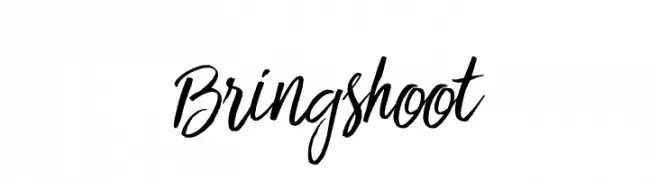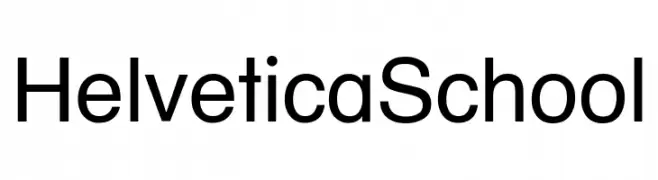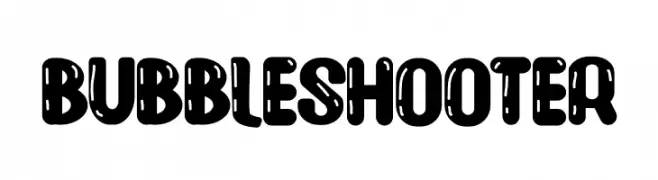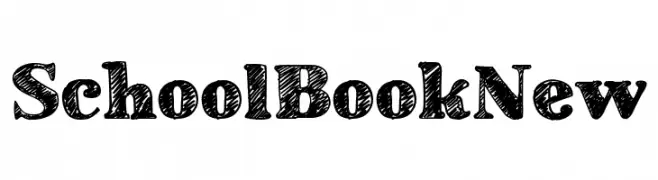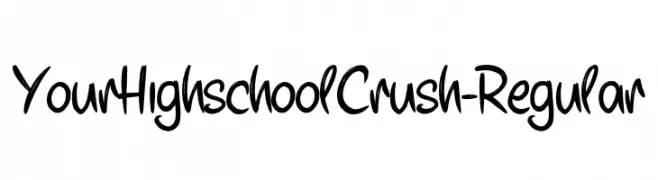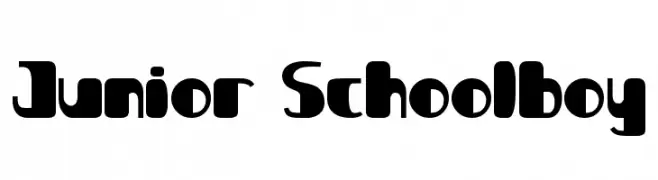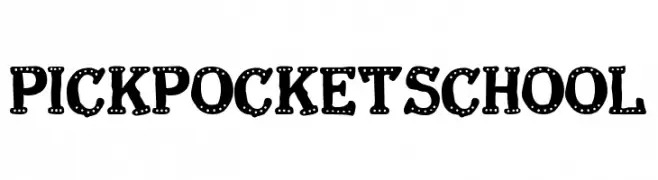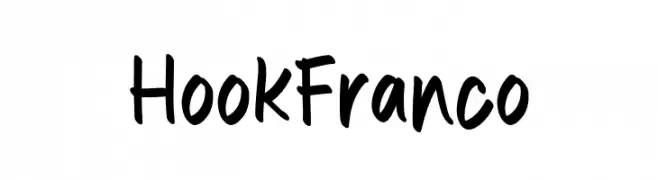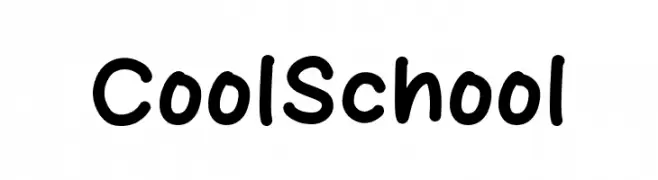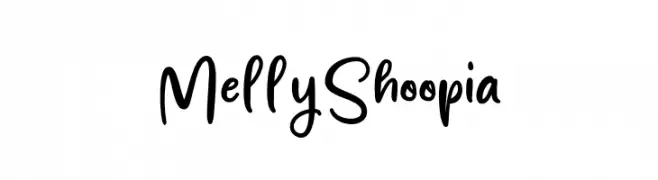
A playful, bold font with rounded characters, available in filled and outlined styles.
A bold, angular font with a futuristic and edgy style.
A dynamic and expressive handwritten font with fluid strokes.
A playful, bold font with a bubble-like, glossy appearance.
A bold, decorative font with floral patterns and vintage flair.
A bold, textured font with a hand-drawn, sketch-like appearance.
A bold, handwritten font with a playful and dynamic style.
A playful, bubbly font with a hand-drawn, whimsical style.
A playful, bold font with rounded, whimsical characters.
A bold, three-dimensional font with a retro comic book style.
A playful, decorative font with bold, rounded letters and dotted edges.
A bold, playful handwritten font with a lively and informal style.
A playful, rounded font with a hand-drawn, casual vibe.
A playful, casual handwritten font with smooth, flowing curves.
A bold, playful font with rounded, bubbly characters and a whimsical style.
A bold, dynamic font with sharp, angular cuts and high contrast strokes.
A playful, hand-drawn font with a casual and friendly vibe.
A playful, hand-drawn font with irregular, whimsical letterforms.
A bold, playful font with a hand-drawn, whimsical style.
A playful, handwritten-style font with bold, rounded characters.
A playful, rounded font with a friendly and approachable style.
A playful, handwritten font with bold, rounded characters and a casual, friendly appearance.
A playful, handwritten script font with medium contrast and decorative flair.
A bold, playful font with paper plane decorations, perfect for creative projects.
A playful, bold font with leaf-like accents on each character, perfect for fun and creative projects.
A playful, bold font with rounded, bubbly characters.
A bold, rounded font with a playful dotted pattern, perfect for creative projects.
A bold, sporty font with integrated ball motifs for a playful and energetic look.
A playful, handwritten font with a casual and friendly appearance.
A bold, energetic script font with a lively, handwritten style.
A bold, playful font with thick, rounded shapes and a whimsical retro style.
A playful and dynamic handwritten font with bold, expressive strokes.
A lively, handwritten cursive font with fluid, connected strokes.